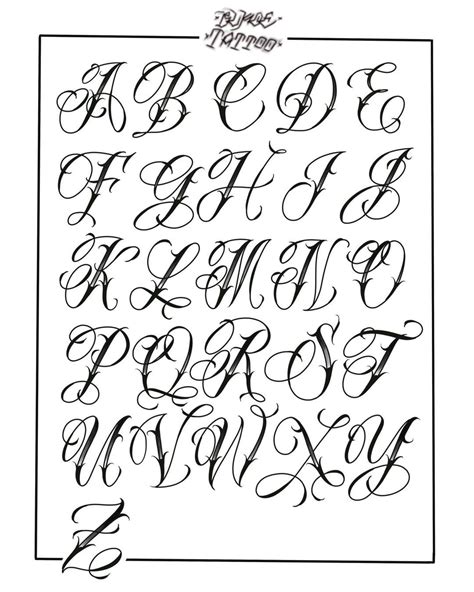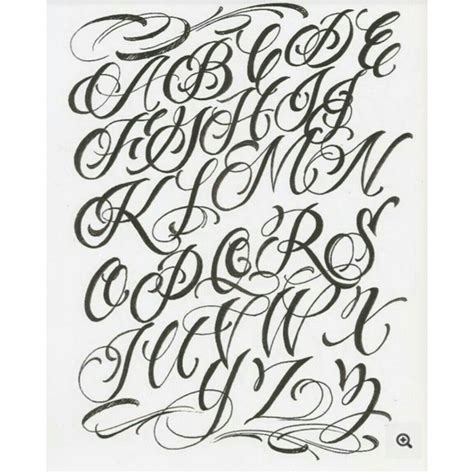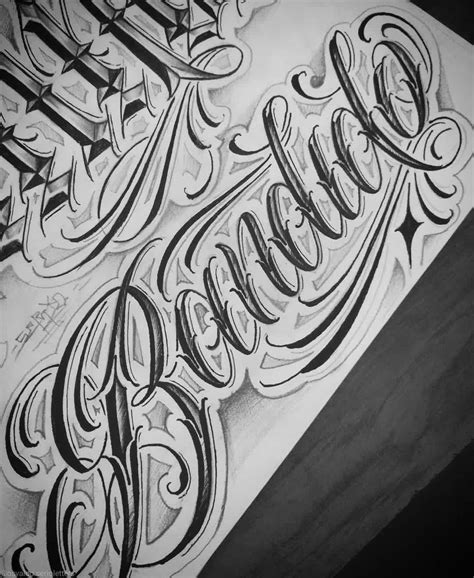
Typography has always been a powerful tool for expressing cultural identity and heritage. One of the most distinctive and culturally rich fonts is the *Chicano Cursive Font*. This font is deeply rooted in the Chicano culture, a vibrant blend of Mexican and American influences that emerged in the United States, particularly in the Southwest. The *Chicano Cursive Font* is not just a typeface; it is a symbol of pride, resistance, and cultural expression.
The Origins of Chicano Cursive Font
The *Chicano Cursive Font* traces its origins back to the Chicano Movement of the 1960s and 1970s. This movement was a civil rights effort by Mexican Americans to promote social, political, and economic equality. The font itself is inspired by traditional Mexican calligraphy and the distinctive handwriting styles of the Chicano community. It often features bold, flowing lines and intricate details that reflect the artistic and cultural heritage of the Chicano people.
Characteristics of Chicano Cursive Font
The *Chicano Cursive Font* is characterized by its unique blend of elegance and boldness. Some of the key features include:
- Flowing Lines: The font often features smooth, continuous lines that give it a cursive appearance.
- Intricate Details: Many versions of the font include intricate details and flourishes that add to its visual appeal.
- Bold and Dynamic: The font is designed to be bold and dynamic, making it stand out in any context.
- Cultural Symbols: Some variations of the font incorporate cultural symbols and motifs that are significant to the Chicano community.
Uses of Chicano Cursive Font
The *Chicano Cursive Font* is versatile and can be used in a variety of contexts. Here are some of the most common uses:
- Art and Design: The font is often used in art and design projects to add a cultural and artistic touch.
- Graphic Design: Graphic designers use the font in logos, posters, and other visual media to convey a sense of cultural identity.
- Typography Projects: The font is a popular choice for typography projects, especially those that focus on cultural themes.
- Personal Projects: Individuals often use the font in personal projects, such as creating custom invitations, greeting cards, or artwork.
Examples of Chicano Cursive Font in Action
To better understand the versatility of the *Chicano Cursive Font*, let's look at some examples of how it has been used in various projects:
![]()
In this example, the font is used in a piece of Chicano art to convey a sense of cultural pride and identity. The flowing lines and intricate details of the font complement the overall design, creating a cohesive and visually appealing piece.
![]()
Here, the font is used in a graphic design project to create a bold and dynamic logo. The font's unique style helps the logo stand out and conveys a strong cultural message.
Chicano Cursive Font in Digital Media
The *Chicano Cursive Font* is not limited to traditional art and design projects. It is also widely used in digital media, including websites, social media, and digital art. Here are some ways to incorporate the font into your digital projects:
- Web Design: Use the font in your website's typography to add a cultural touch. It can be used in headings, subheadings, or body text.
- Social Media Graphics: Create eye-catching graphics for social media using the font. It can be used in posts, stories, or profile pictures.
- Digital Art: Incorporate the font into your digital art projects to add a unique and culturally rich element.
Chicano Cursive Font in Education
The *Chicano Cursive Font* is also a valuable tool in educational settings. It can be used to teach students about Chicano culture, history, and art. Here are some ways to incorporate the font into educational projects:
- Cultural Studies: Use the font in cultural studies projects to help students understand the significance of typography in cultural expression.